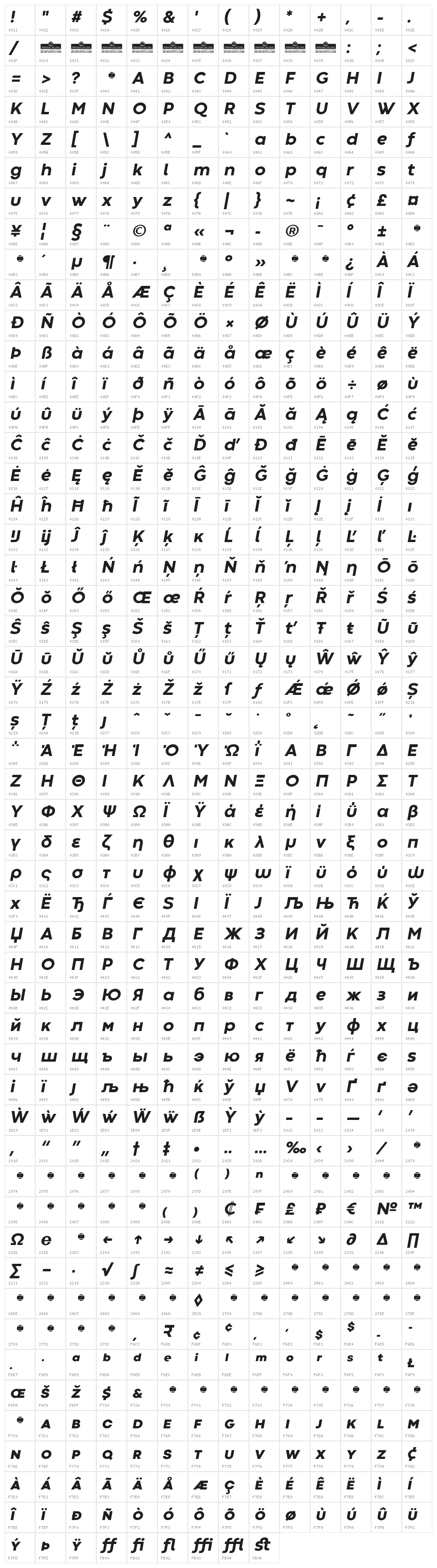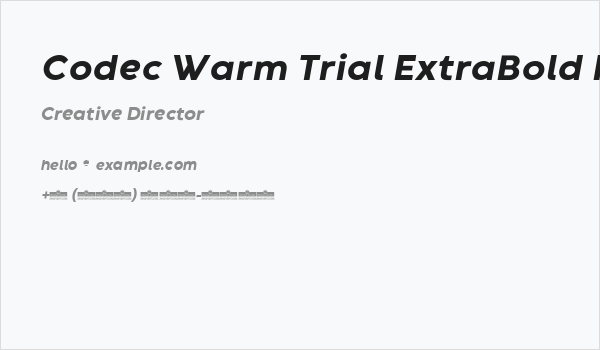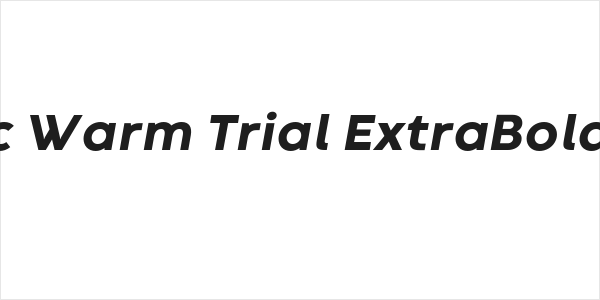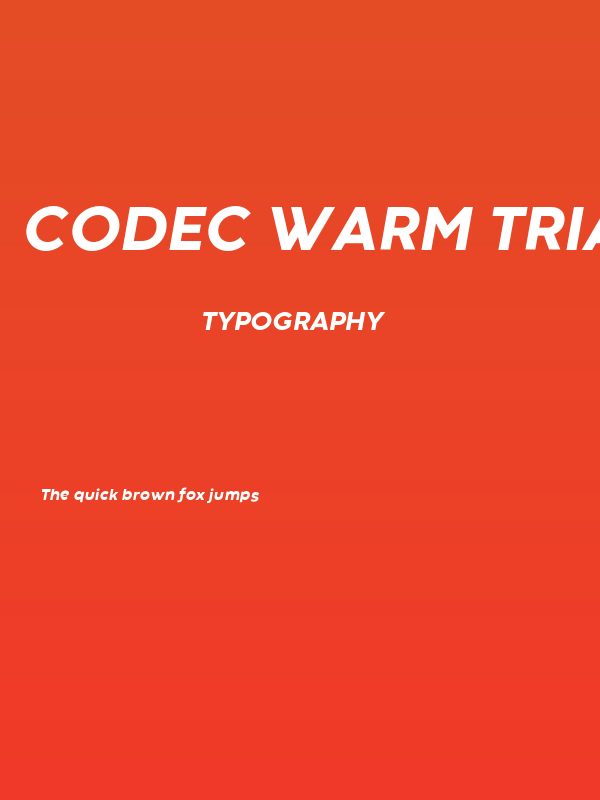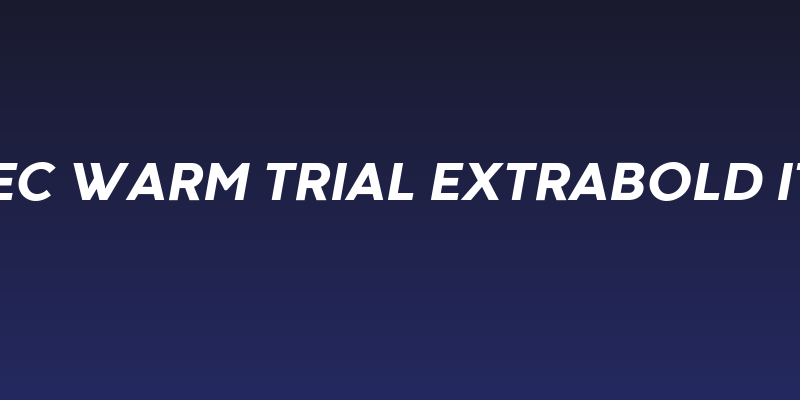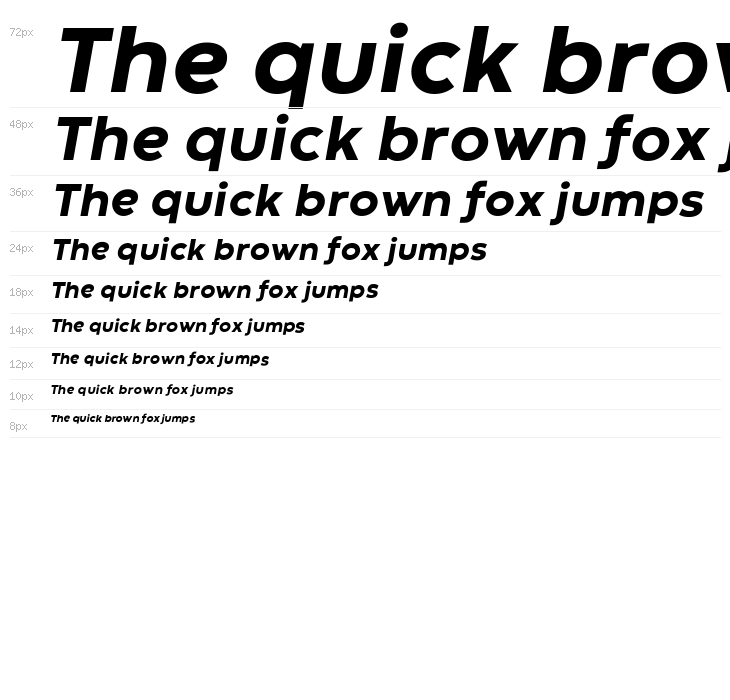
Codec Warm Trial ExtraBold Italic Font
Codec Warm Trial ExtraBold Italic Description
This font features a bold and dynamic style with a pronounced italic slant, giving it a sense of motion and energy. The characters are well-defined with a modern aesthetic, making it suitable for contemporary design projects. The uppercase and lowercase letters maintain a consistent weight, providing a harmonious look across different text sizes. The numerals and special characters are designed to complement the alphabet, ensuring versatility in various applications. The overall appearance is sleek and professional, ideal for making a strong visual impact.
| Proposed Projects | Ideal for branding, advertising, headlines, and digital media where a strong, modern presence is desired. |